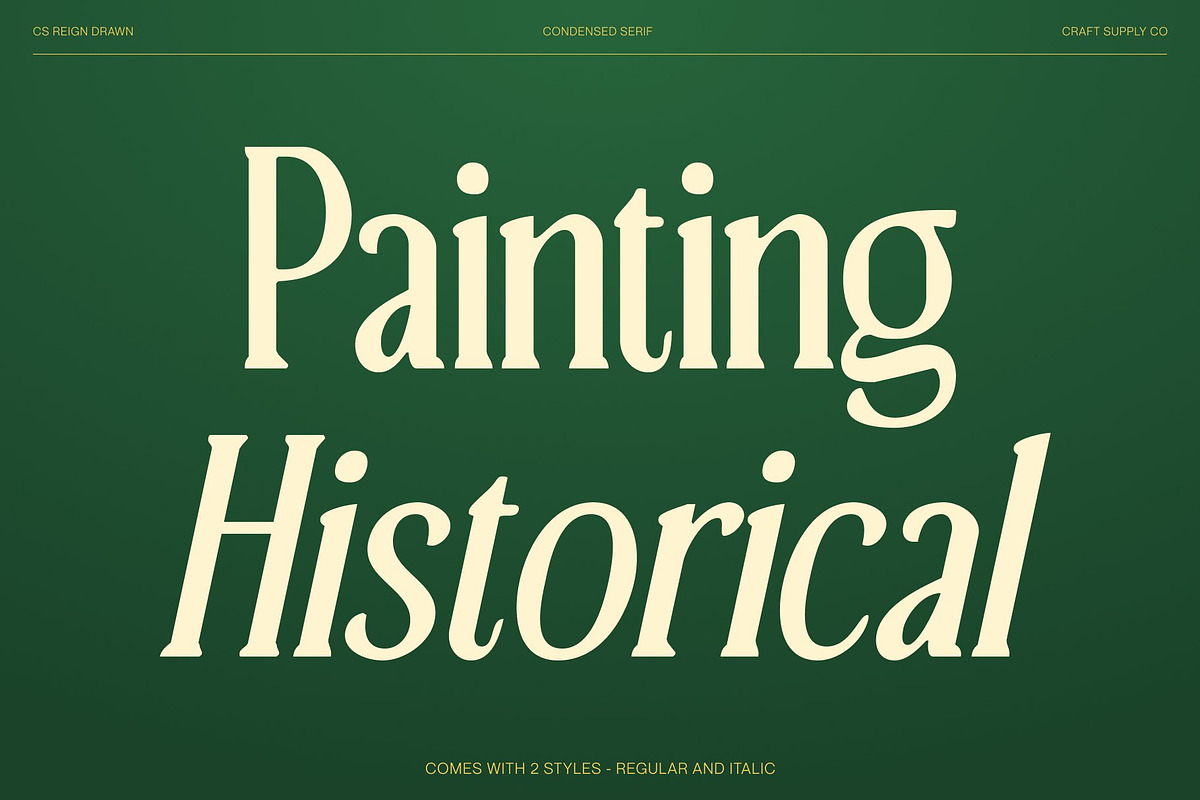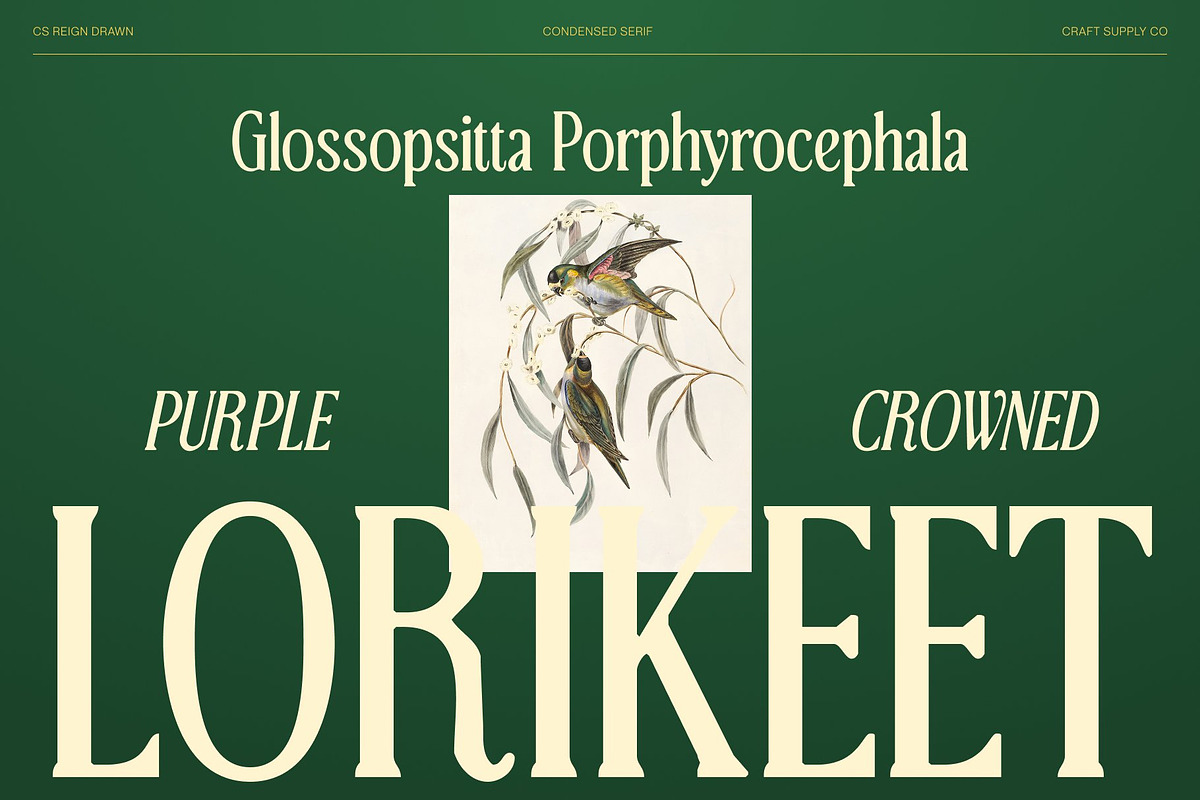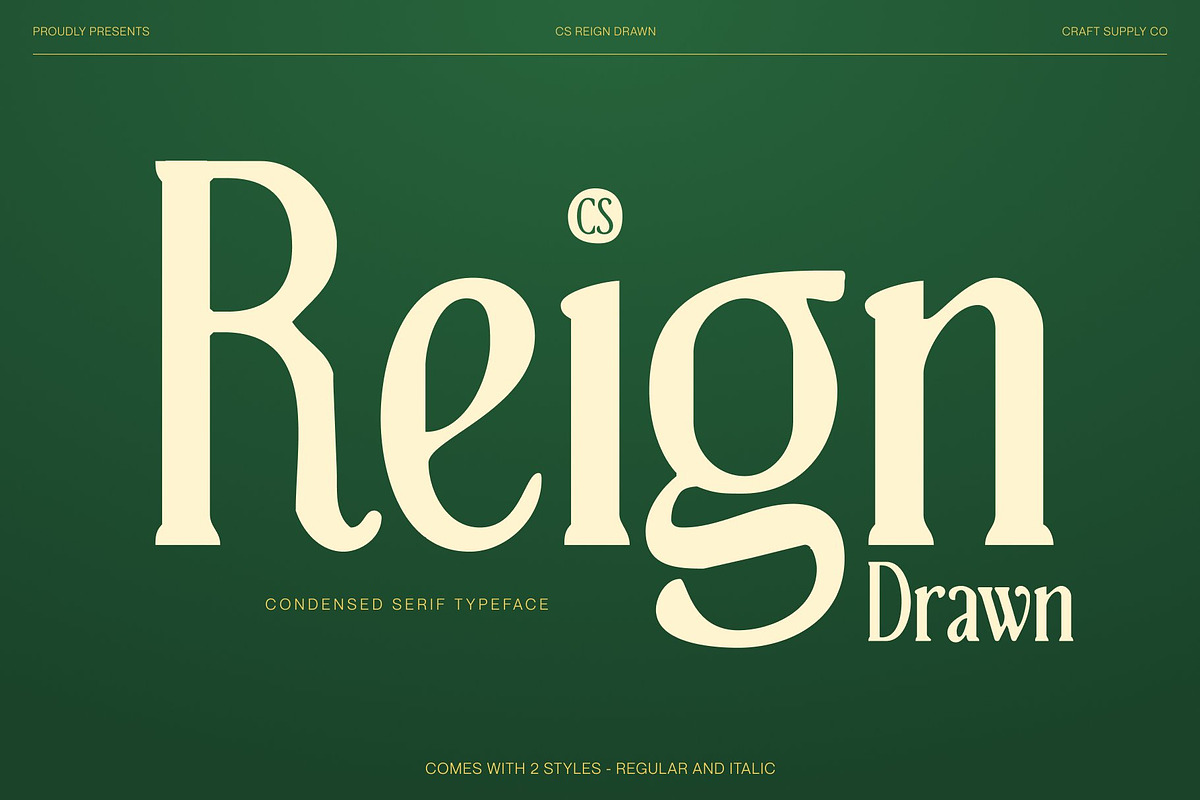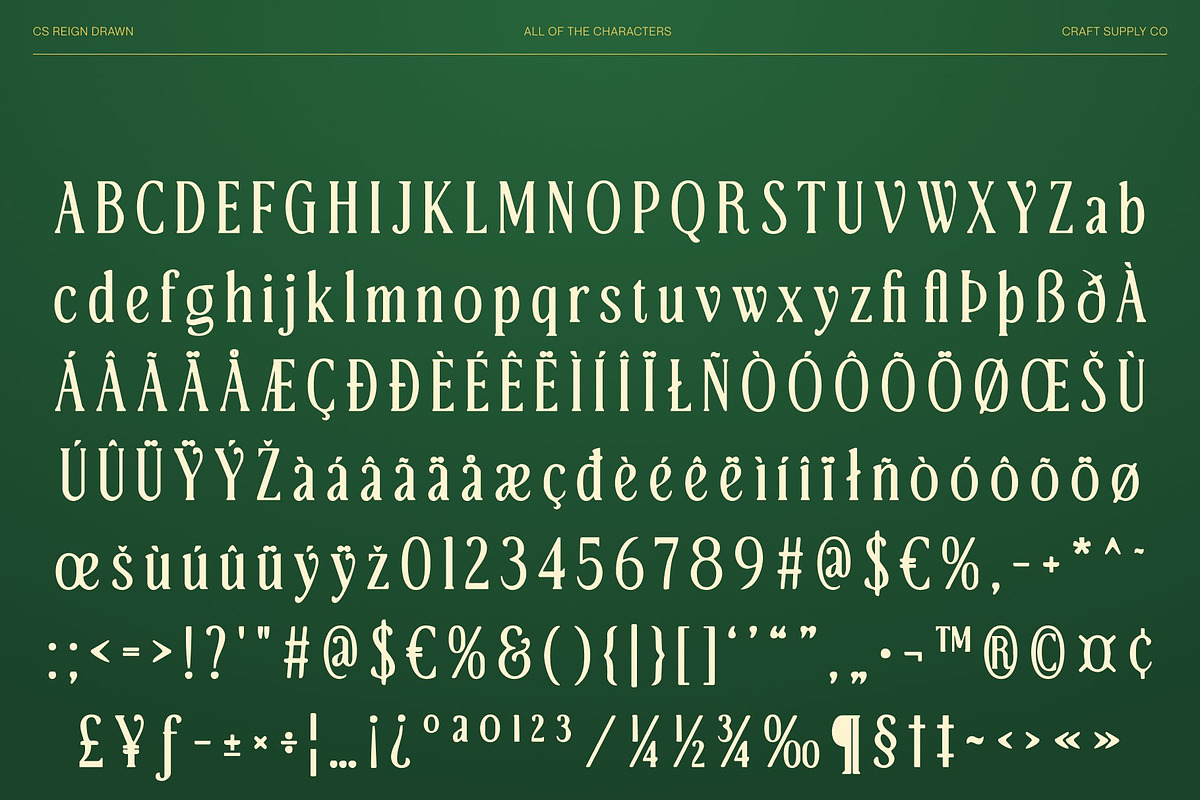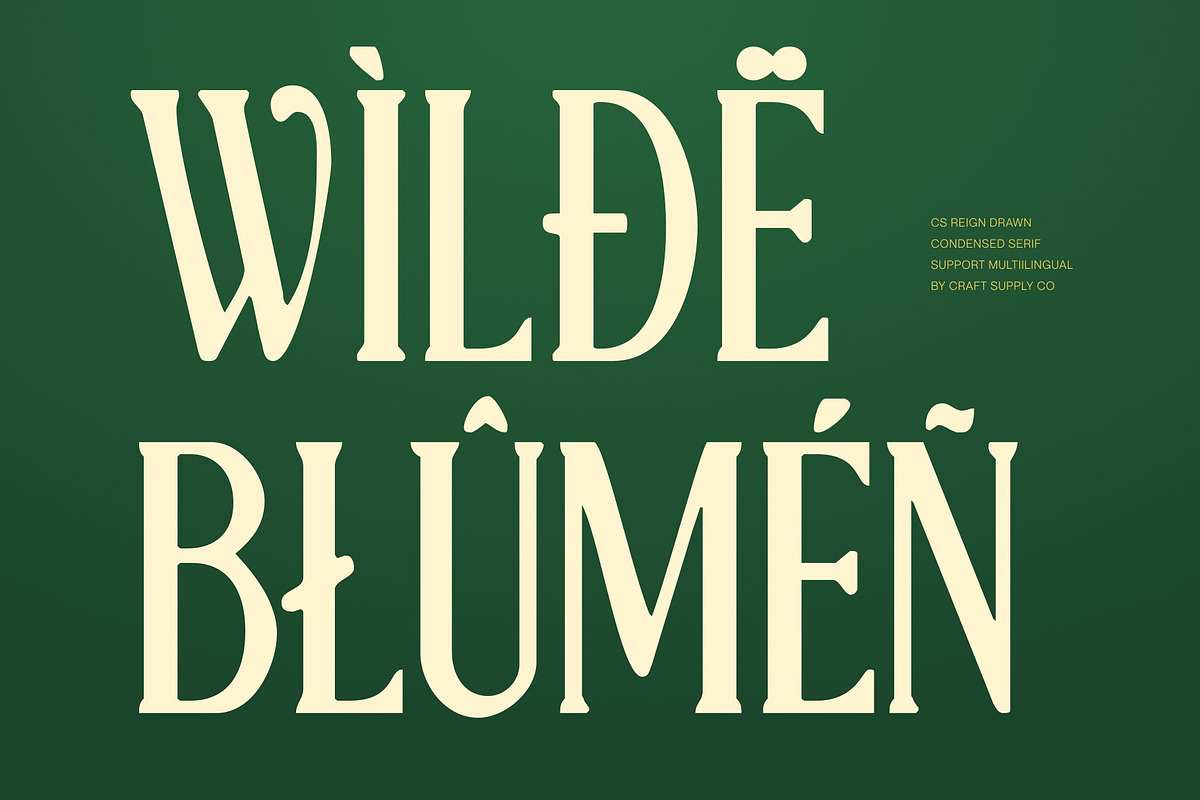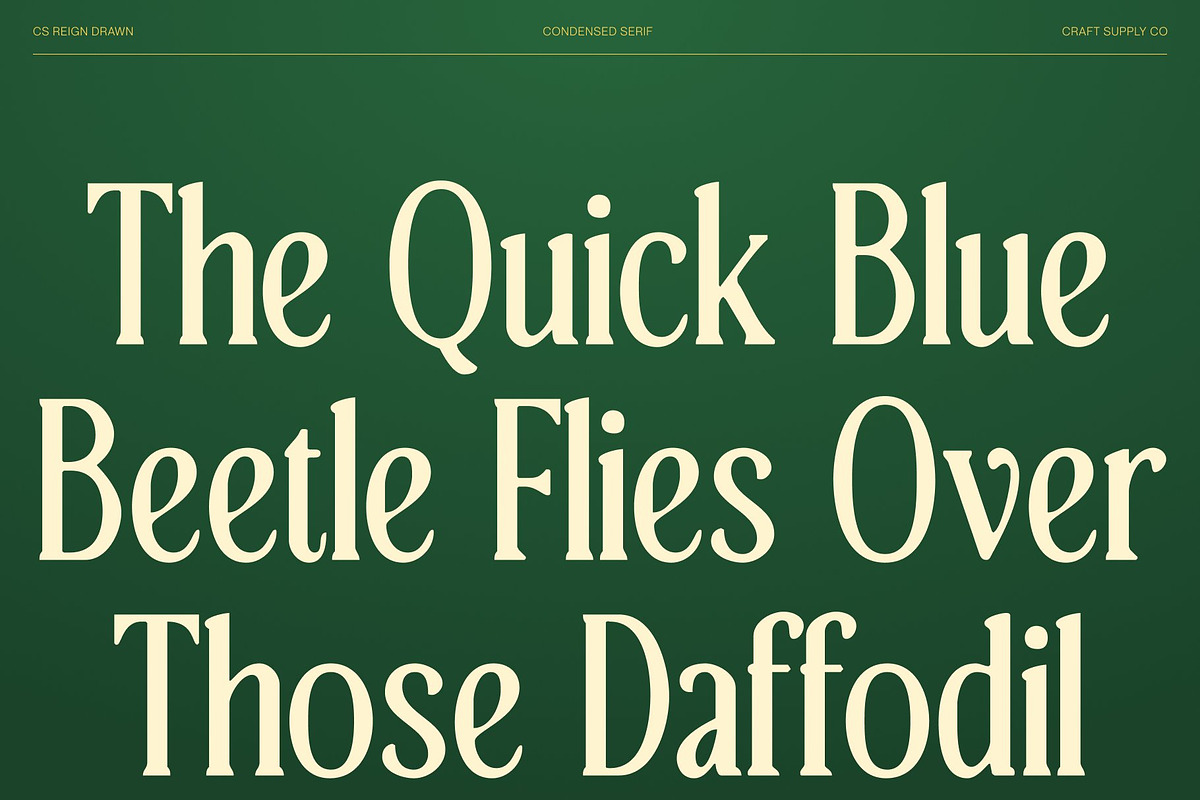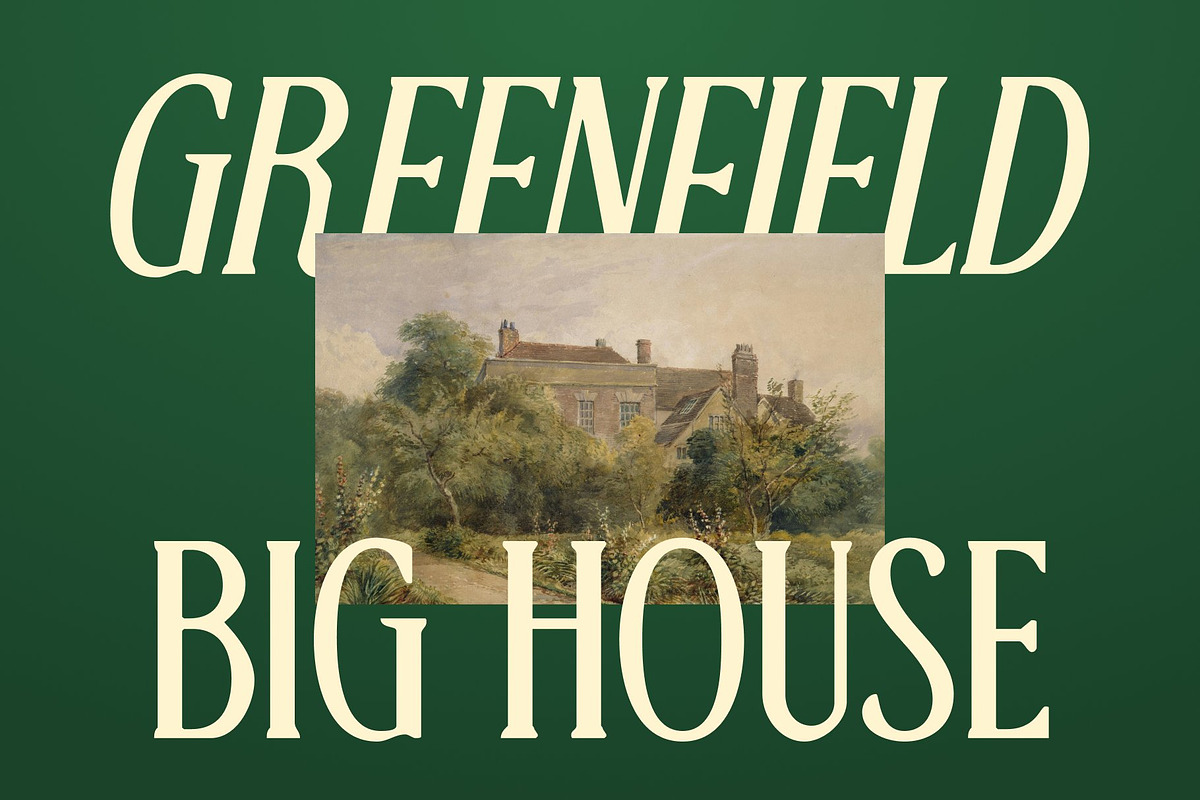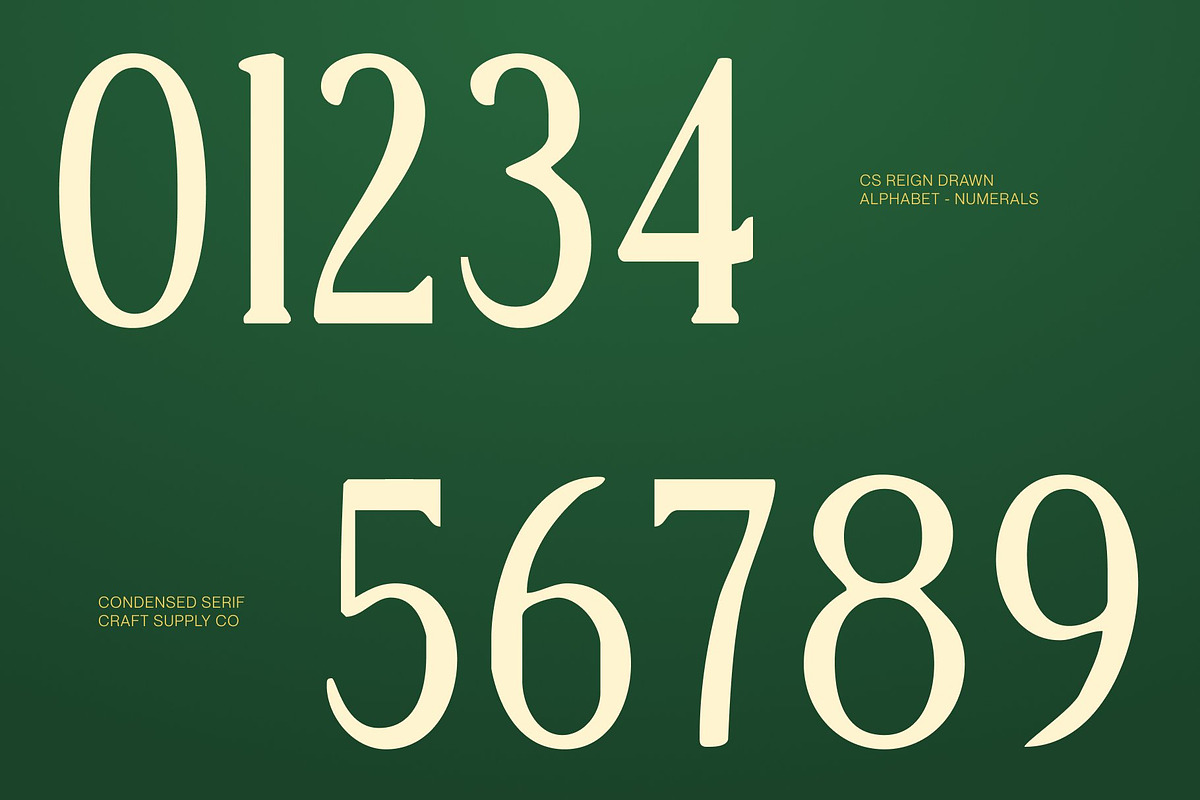
CS Reign Drawn
CS Reign Drawn – Elegant Font: Graceful Sophistication in Modern Form
Elegant Modern Serif with Hand-Drawn Refinement This is a modern serif font that embodies elegance and finesse through its long, refined serifs, slim structure, and minimalist design. Its tall proportions and delicate details convey a sense of grace and sophistication, while the drawn texture introduces a subtle handcrafted nuance that adds warmth and character to its polished appearance.
Slim, Graceful Structure with Luxurious Charm Each character is thoughtfully crafted with a slender, elongated form that balances modern clarity with timeless elegance. The extended serifs enhance its refined personality without compromising readability, while the hand-drawn finish softens the precision, giving the font an organic and artistic feel suited for upscale applications.
Perfect for Beauty, Fashion, and Luxury Branding This is a natural choice for luxury branding, fashion editorials, beauty campaigns, and high-end packaging. Its chic, poised presence elevates visual storytelling, adding sophistication and emotional depth to layouts that demand elegance and exclusivity.
Contemporary Elegance with Timeless Appeal Blending modern minimalism with classic serif grace, offers a distinctive aesthetic that performs beautifully across both print and digital media. Whether used for logos, magazine covers, invitations, or social content, this font delivers a lasting impression of refined beauty, confidence, and understated luxury.